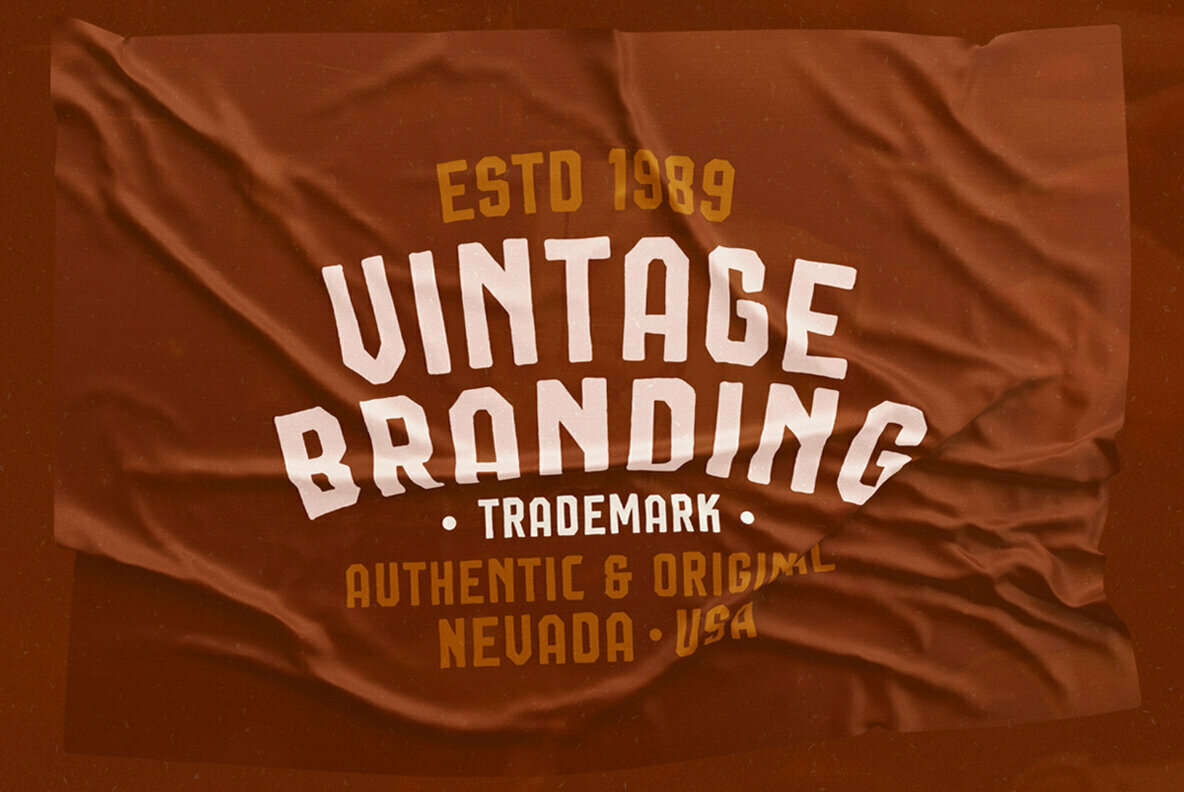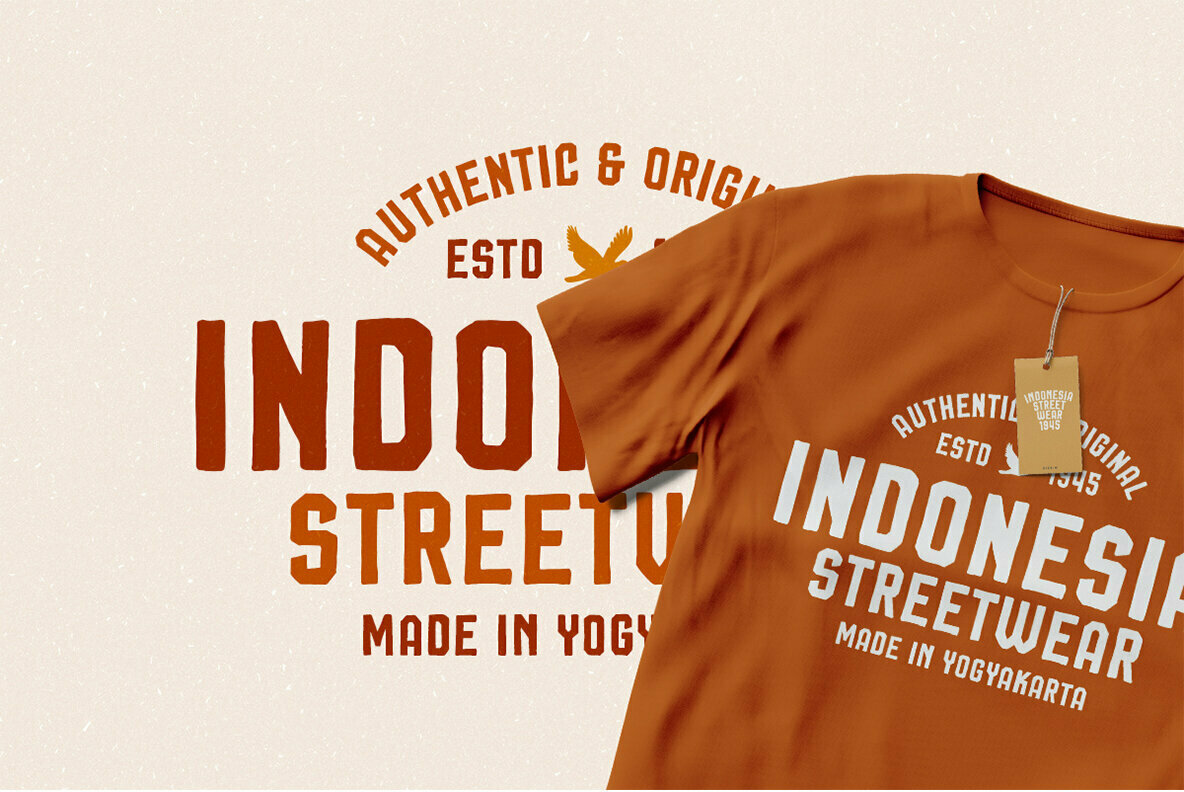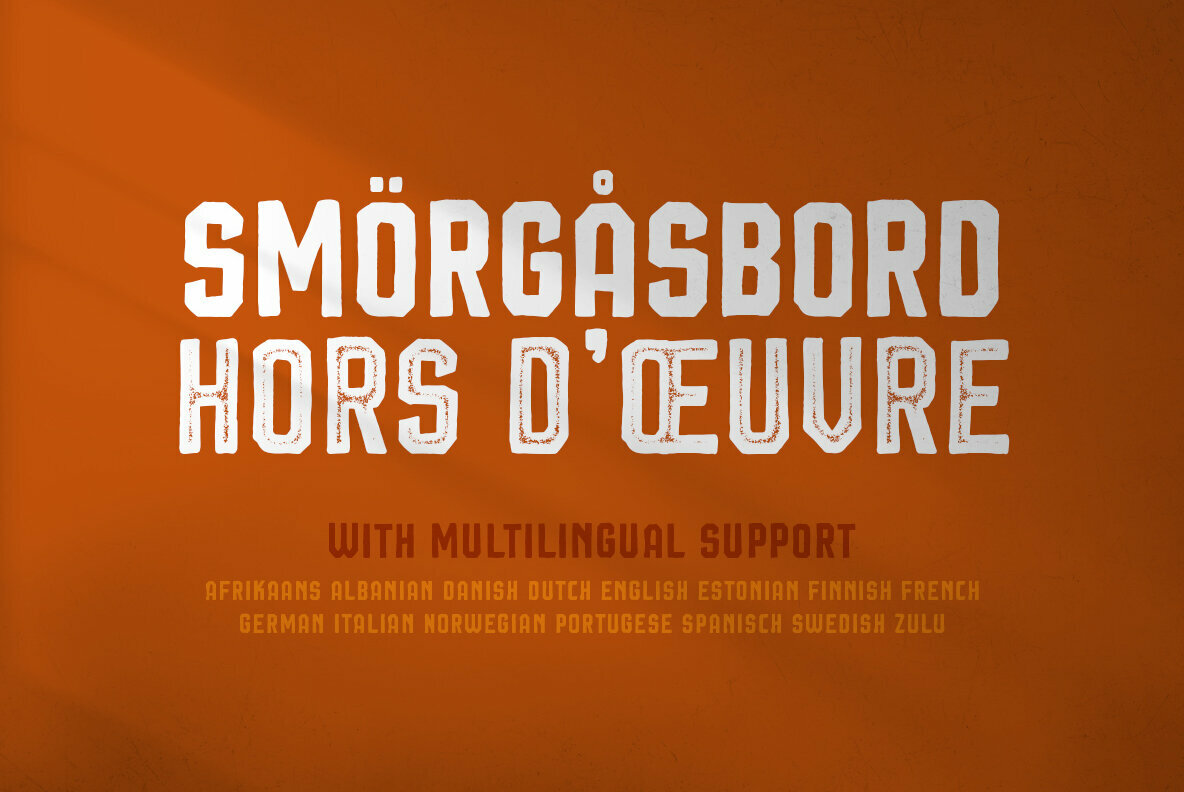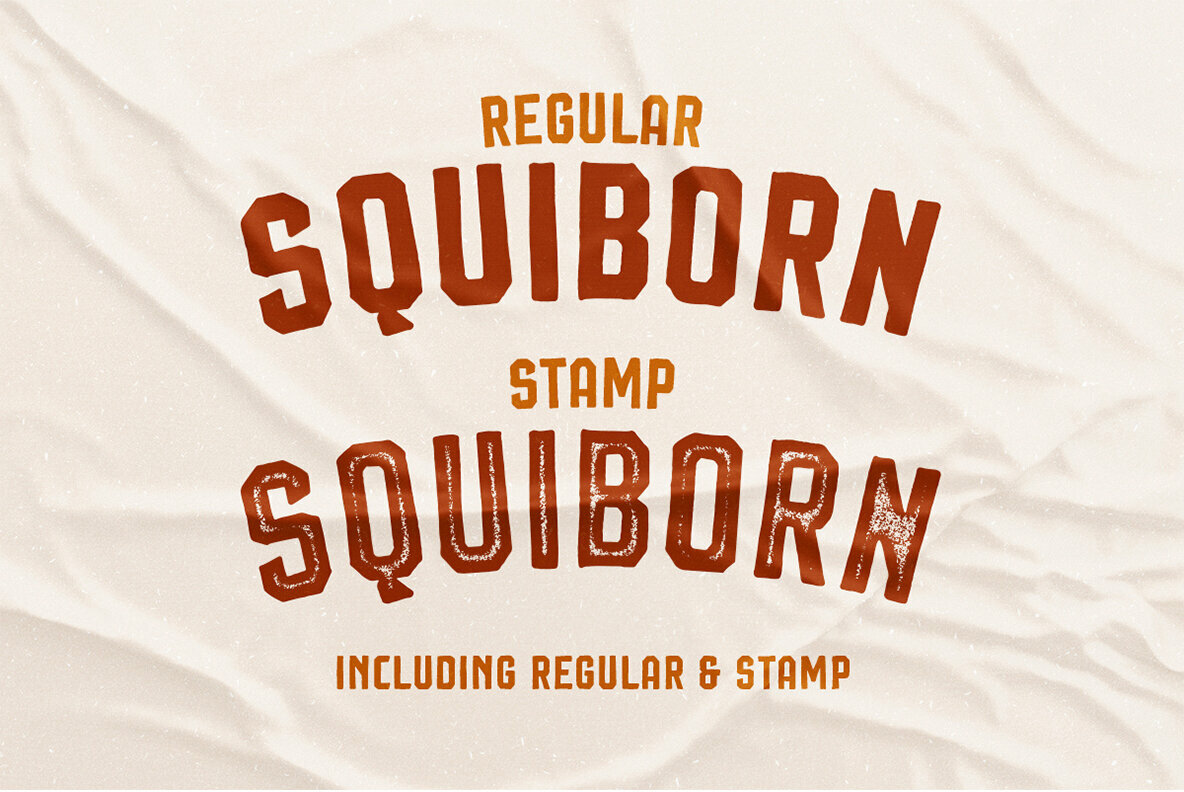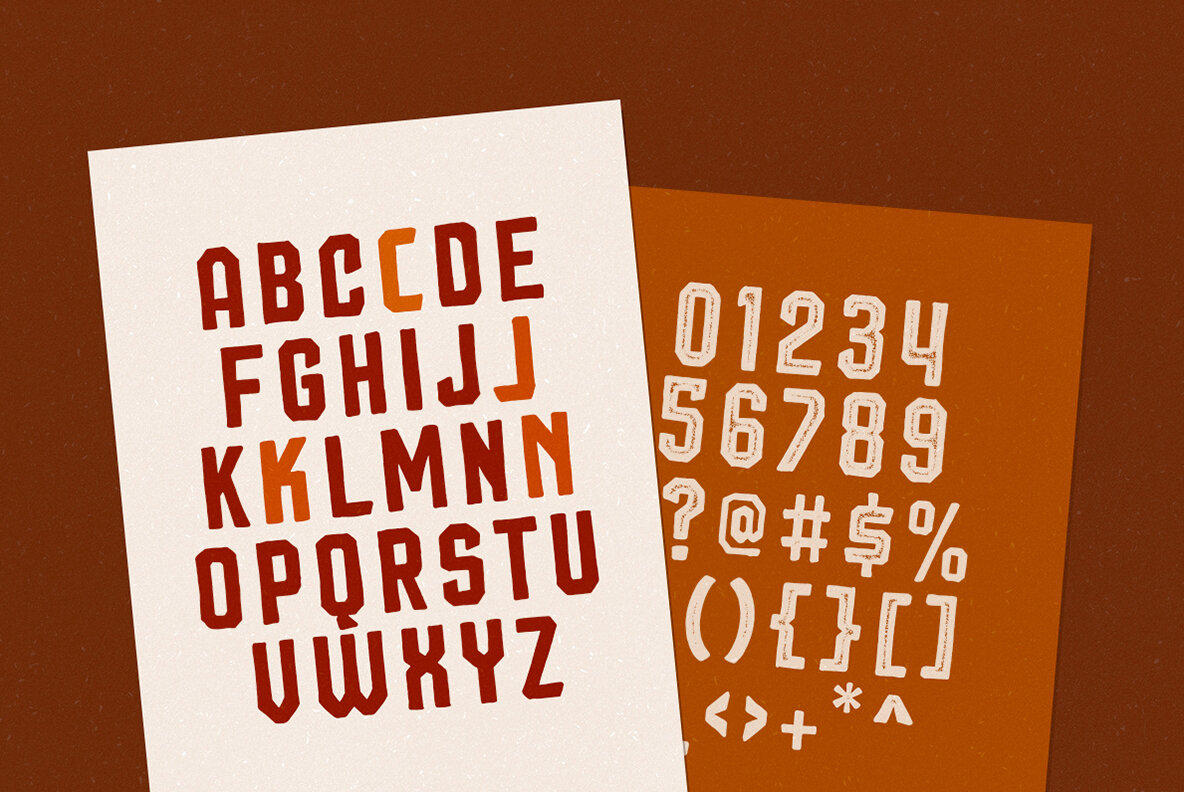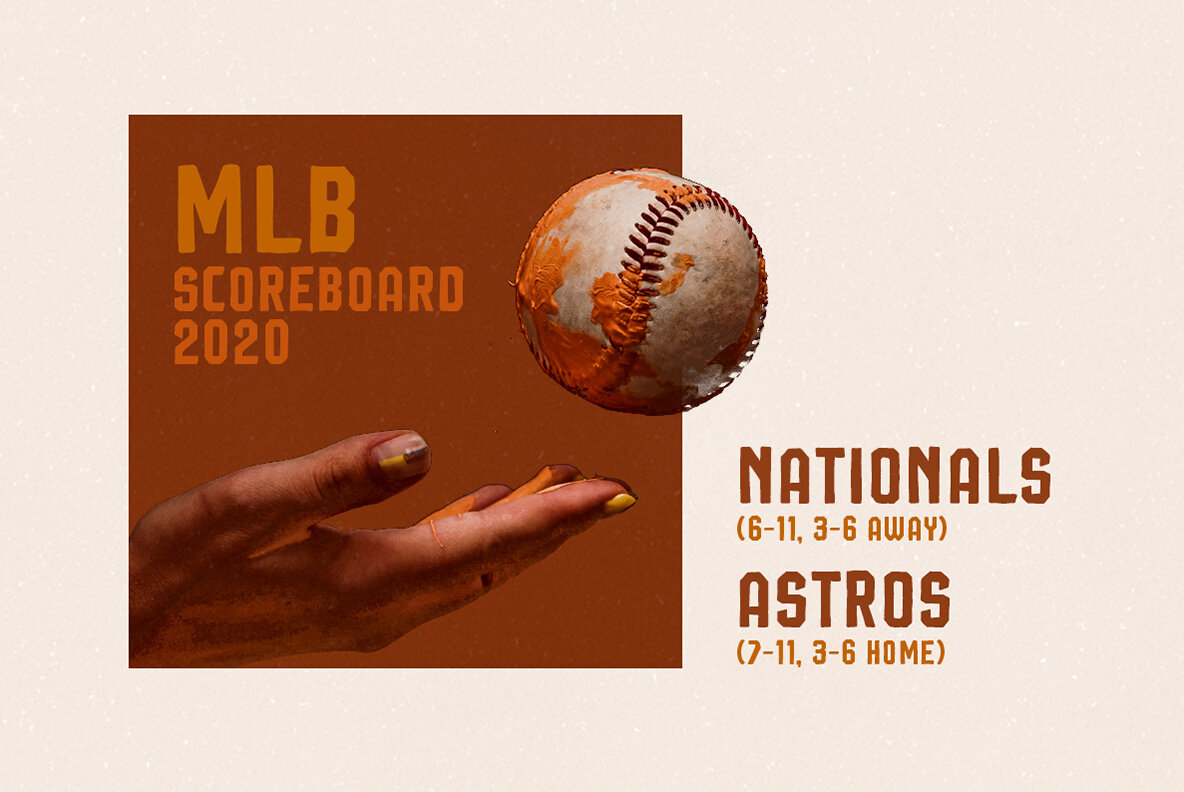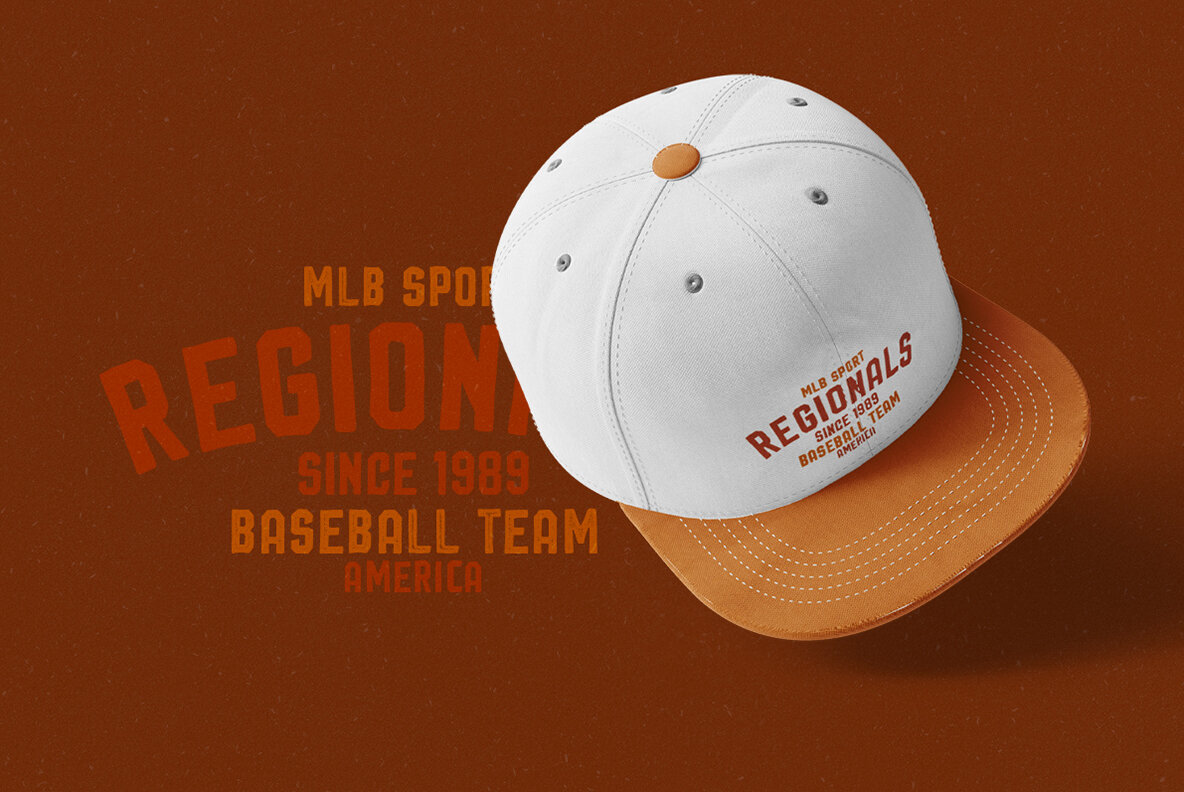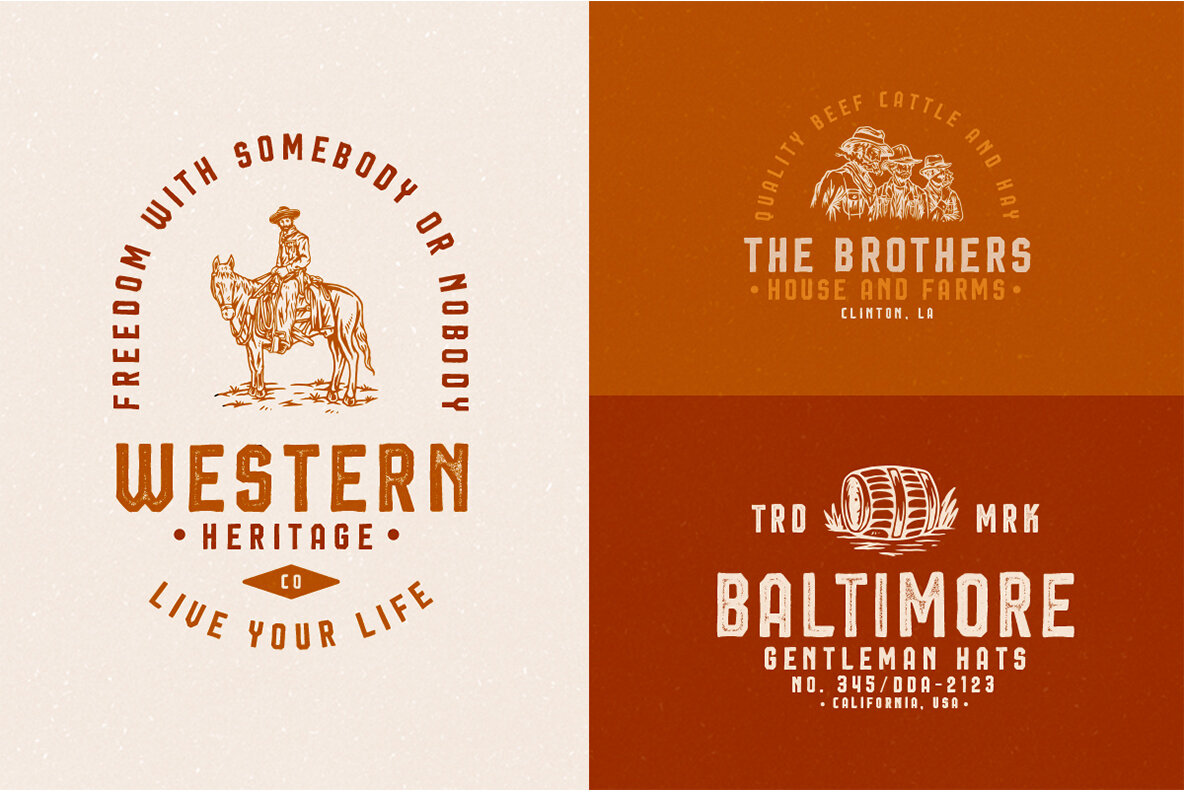
Squiborn Font
Squiborn Regular
Squiborn Stamp
Squiborn, a hand drawn display font with bold and strong feel. This font perfectly made to be applied especially in logo, and the other various formal forms such as invitations, labels, magazines, books, greeting / wedding cards, packaging, fashion, make up, stationery, novels, labels or any type of advertising purpose.